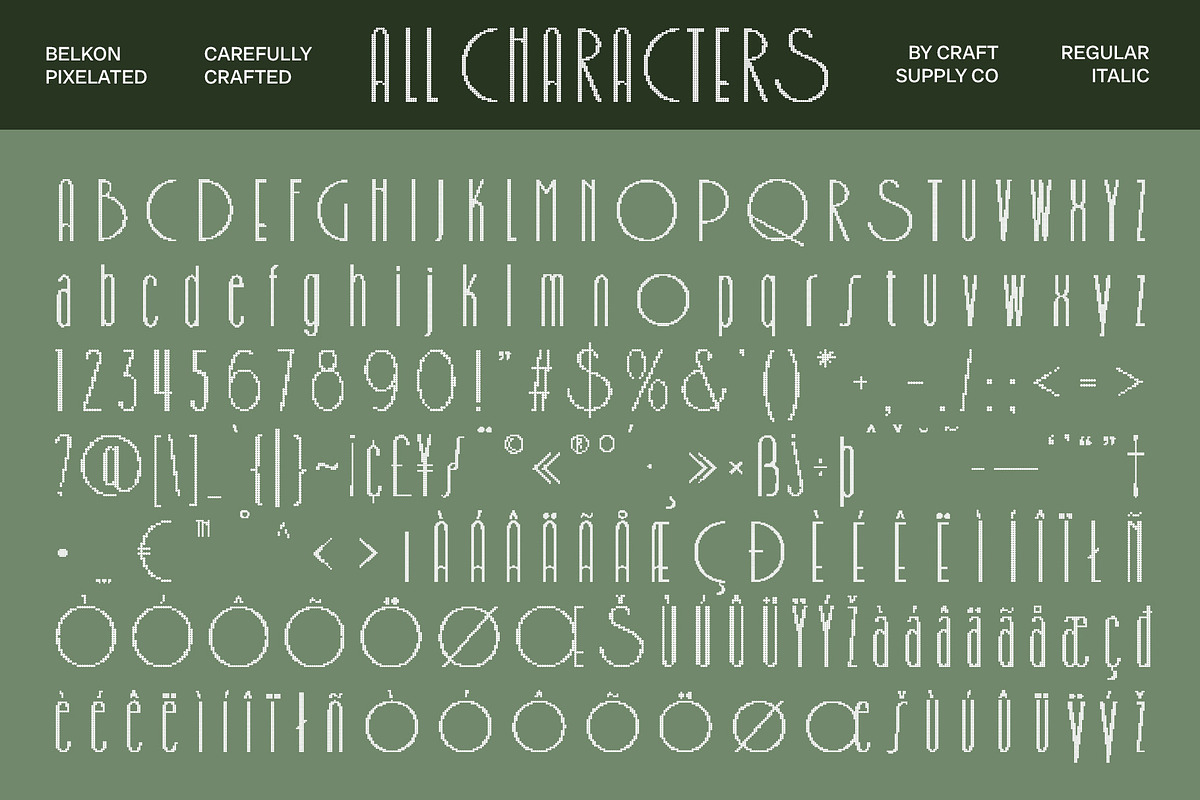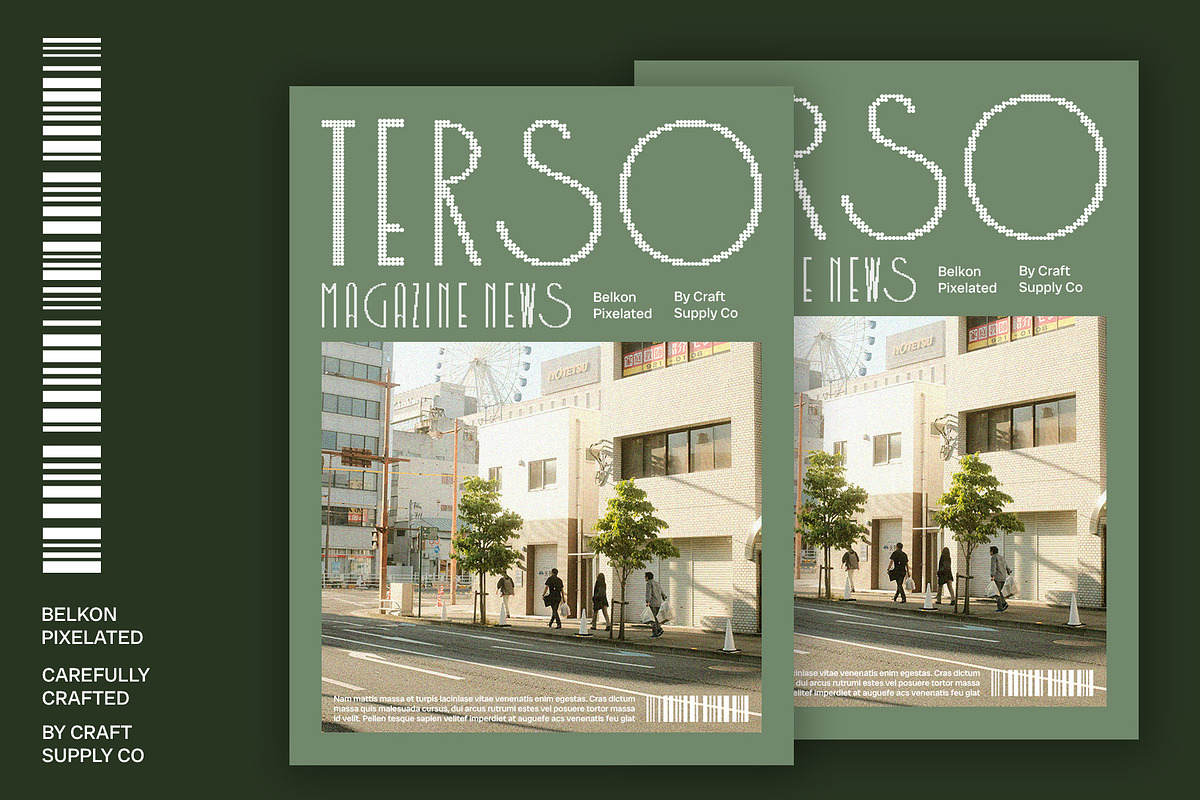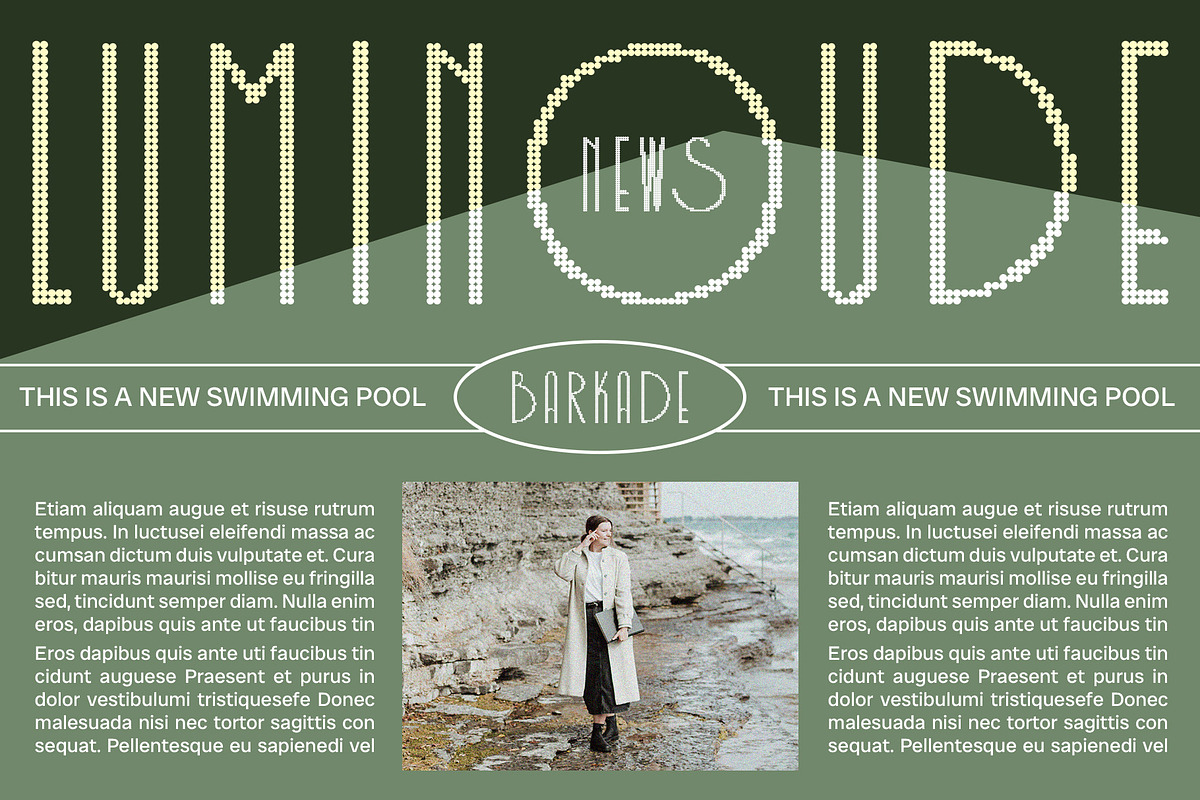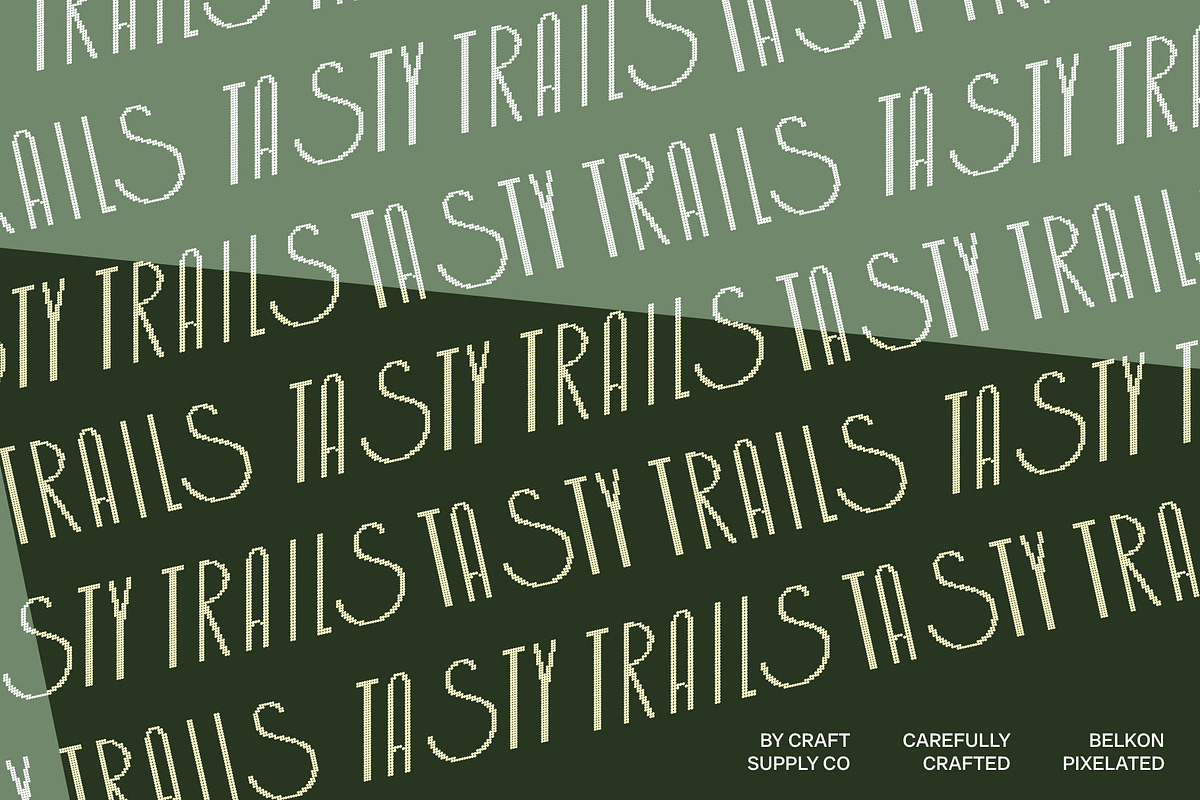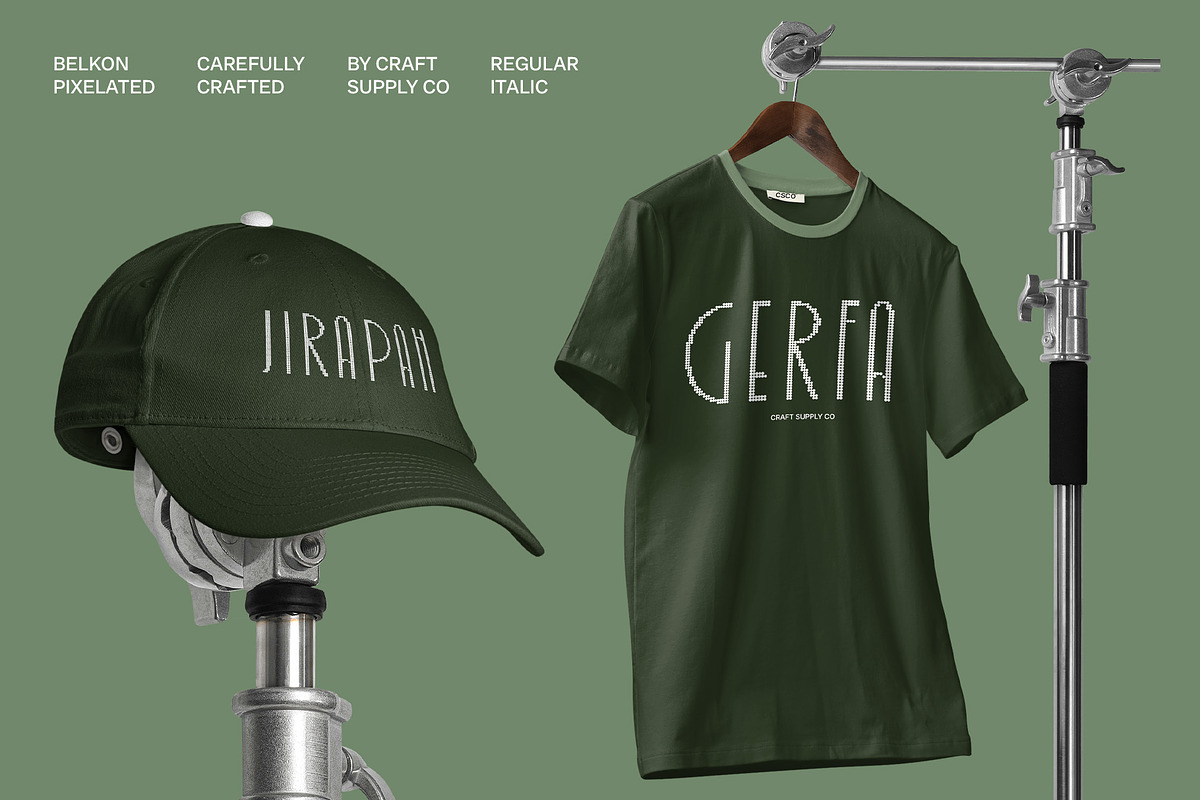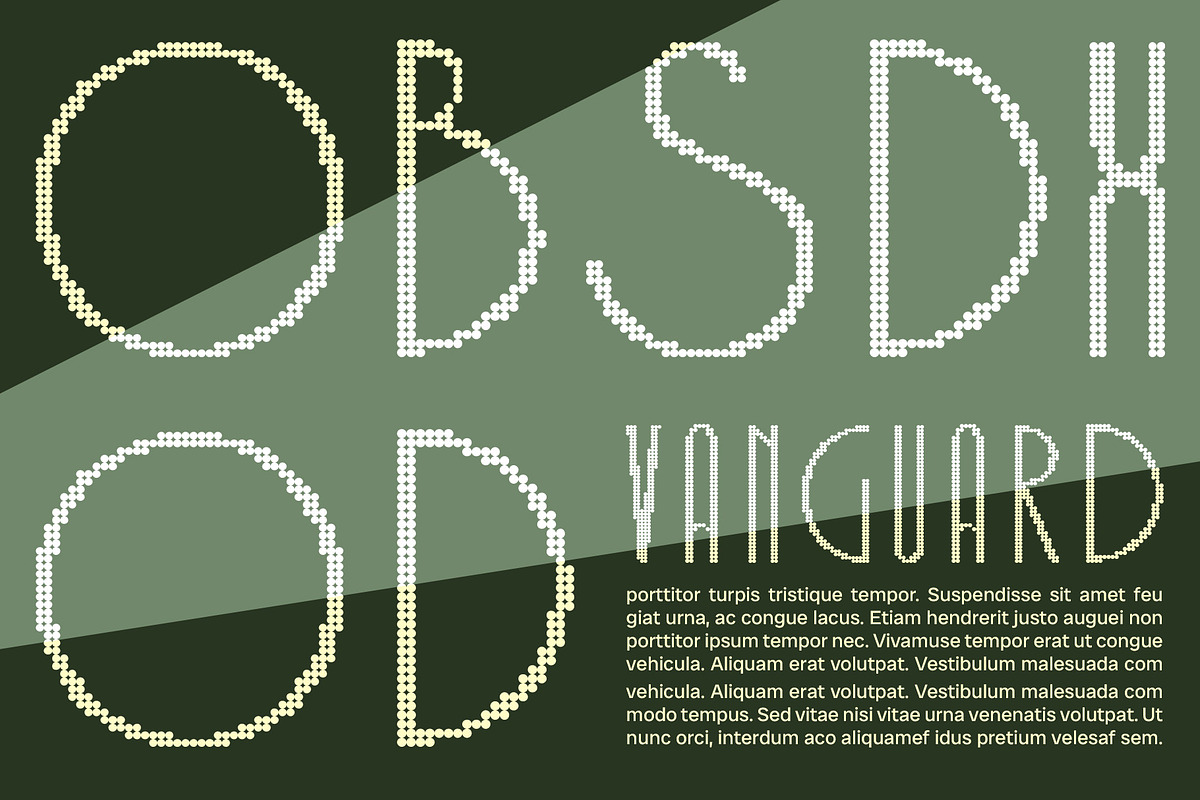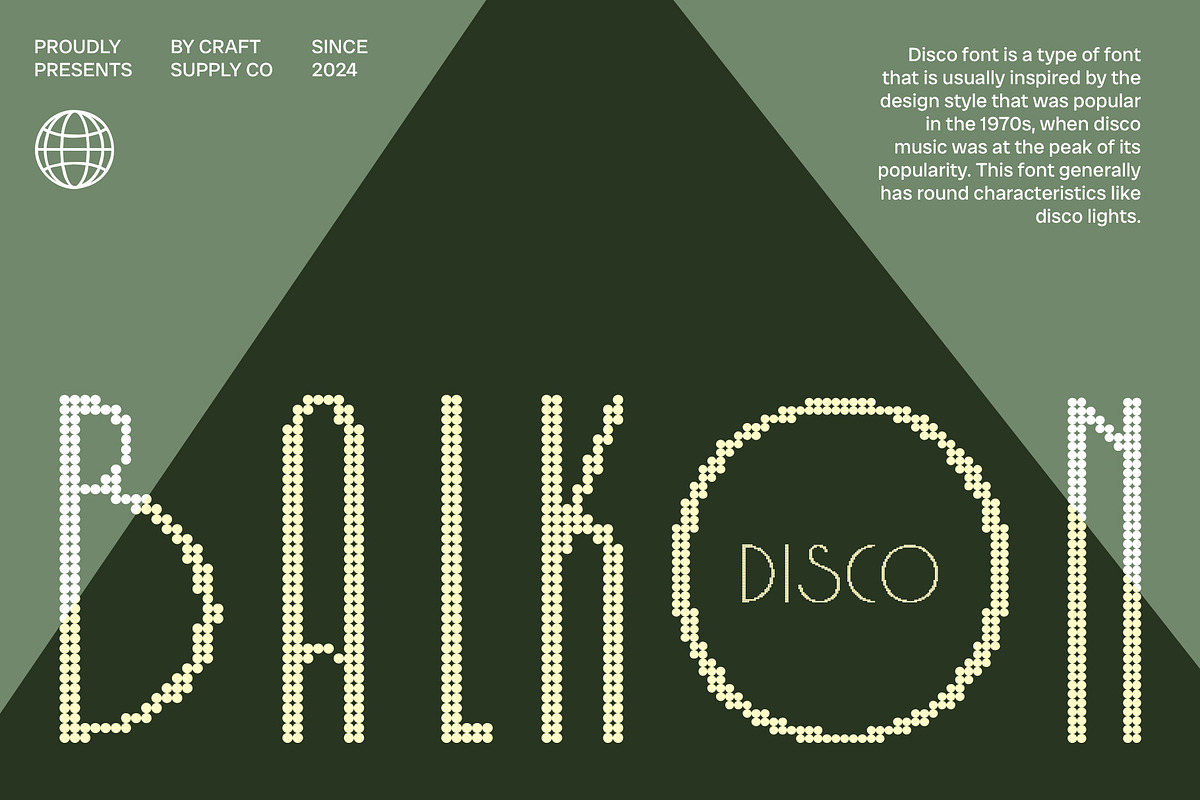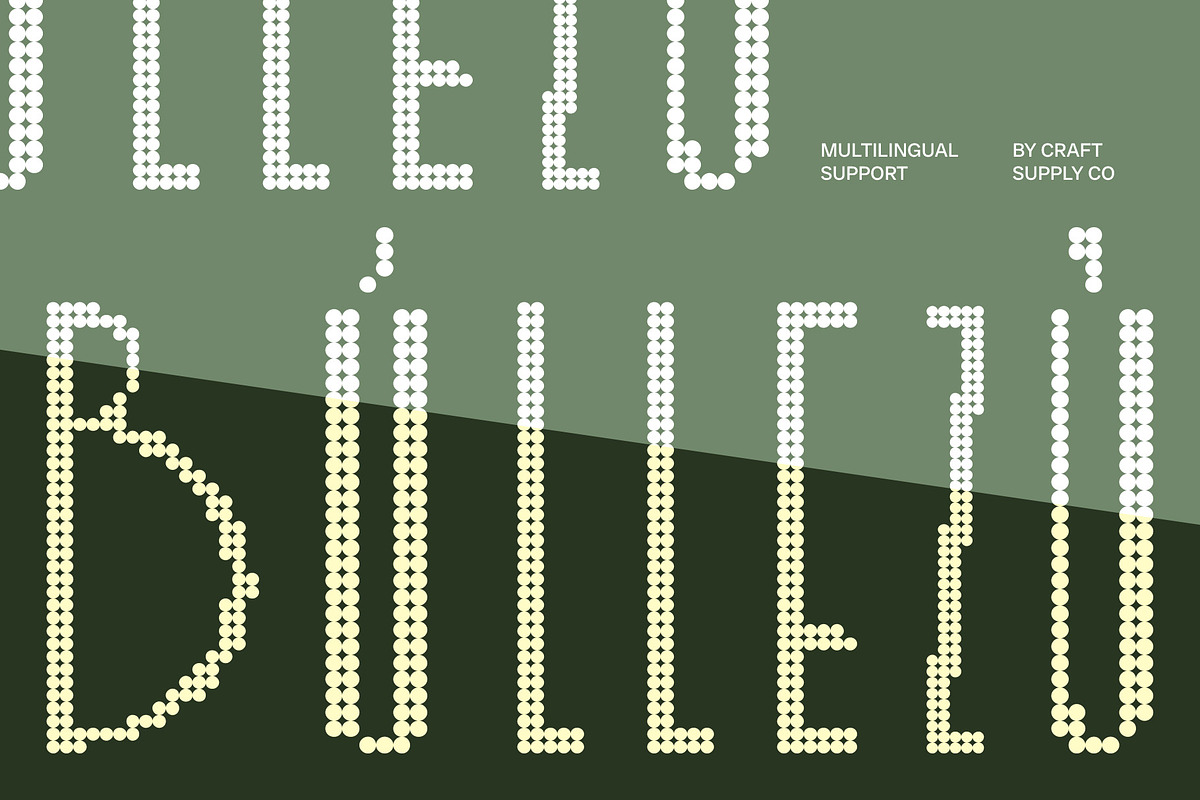
Belkon Disco
Belkon Disco Font: A Glamorous Fusion of Art Deco and Modern Style
Modern Sans Serif with Art Deco Shapes Belkon Disco is a modern sans serif font that beautifully marries captivating Art Deco shapes with contemporary design sensibilities. Its geometric lines and elegant ornaments create a stylish and sophisticated look, making it a perfect fit for projects that require a touch of class and refinement. The font’s bold structure ensures visibility while maintaining an air of elegance.
Disco Effect for Sparkle and Dynamism The unique disco effect in Belkon Disco infuses the design with a festive vibe, adding a touch of sparkle and movement. This dynamic quality captures attention and energizes any visual project, making it an ideal choice for event posters, branding initiatives, and promotional materials that aim to stand out. The lively aesthetic invites engagement and creates a memorable impression.
Versatile for Attention-Grabbing Designs Belkon Disco shines in a variety of design contexts. Whether you’re crafting eye-catching promotional content or elegant branding for a high-profile event, this font provides the boldness and liveliness needed to create an impactful presence. Its combination of glamour and energy makes it suitable for nightlife promotions, fashion-related projects, and any design requiring a vibrant touch.